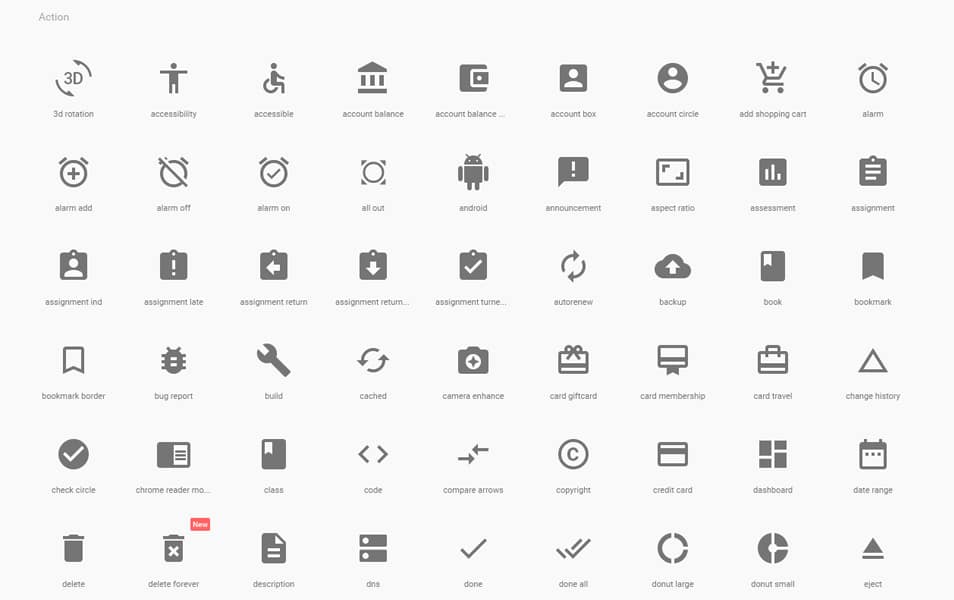
Material Icons Font Download . The material icons guide has everything you need. Browsing and downloading individual icons. It depends on @mui/material , which requires emotion packages. Material symbols are our newest icons consolidating over 2,500 glyphs in a single font file with a wide range of design variants. The icons are available for download in svg or pngs,. The complete set of material icons are available on the material icon library. All the material icons are available on the github page. This package is automatically updated, so it. Use the popdown menu near top left to choose between the two. Material design icons are delightful, beautifully crafted symbols for common actions, available in a variety of styles (filled, outlined,. Material icons is an icon font useful for implementing google's material design language.
Material design icons are delightful, beautifully crafted symbols for common actions, available in a variety of styles (filled, outlined,. It depends on @mui/material , which requires emotion packages. Material symbols are our newest icons consolidating over 2,500 glyphs in a single font file with a wide range of design variants. Browsing and downloading individual icons. The complete set of material icons are available on the material icon library. This package is automatically updated, so it. Material icons is an icon font useful for implementing google's material design language. The material icons guide has everything you need. All the material icons are available on the github page. The icons are available for download in svg or pngs,.
Material Icons Font Download Material symbols are our newest icons consolidating over 2,500 glyphs in a single font file with a wide range of design variants. The complete set of material icons are available on the material icon library. It depends on @mui/material , which requires emotion packages. The material icons guide has everything you need. Material design icons are delightful, beautifully crafted symbols for common actions, available in a variety of styles (filled, outlined,. Browsing and downloading individual icons. All the material icons are available on the github page. The icons are available for download in svg or pngs,. This package is automatically updated, so it. Material symbols are our newest icons consolidating over 2,500 glyphs in a single font file with a wide range of design variants. Material icons is an icon font useful for implementing google's material design language. Use the popdown menu near top left to choose between the two.
6 Free Material Design Icon Packs Super Dev Resources Material Icons Font Download Browsing and downloading individual icons. It depends on @mui/material , which requires emotion packages. The icons are available for download in svg or pngs,. Material design icons are delightful, beautifully crafted symbols for common actions, available in a variety of styles (filled, outlined,. All the material icons are available on the github page. This package is automatically updated, so it.. Material Icons Font Download.
Material Design Icons Material Icons Font Download The material icons guide has everything you need. The icons are available for download in svg or pngs,. All the material icons are available on the github page. This package is automatically updated, so it. Material design icons are delightful, beautifully crafted symbols for common actions, available in a variety of styles (filled, outlined,. The complete set of material icons. Material Icons Font Download.
Google Icon Font at Collection of Google Icon Font Material Icons Font Download Material symbols are our newest icons consolidating over 2,500 glyphs in a single font file with a wide range of design variants. Material design icons are delightful, beautifully crafted symbols for common actions, available in a variety of styles (filled, outlined,. Material icons is an icon font useful for implementing google's material design language. The complete set of material icons. Material Icons Font Download.
Cara Menggunakan Font Material Icon Pada Kodular YouTube Material Icons Font Download It depends on @mui/material , which requires emotion packages. Material symbols are our newest icons consolidating over 2,500 glyphs in a single font file with a wide range of design variants. The complete set of material icons are available on the material icon library. Use the popdown menu near top left to choose between the two. Browsing and downloading individual. Material Icons Font Download.
Type Icons Font Download Material Icons Font Download The material icons guide has everything you need. Browsing and downloading individual icons. Material design icons are delightful, beautifully crafted symbols for common actions, available in a variety of styles (filled, outlined,. Material icons is an icon font useful for implementing google's material design language. The complete set of material icons are available on the material icon library. The icons. Material Icons Font Download.
Great Icon fonts for Responsive Designing Projects Material Icons Font Download Material design icons are delightful, beautifully crafted symbols for common actions, available in a variety of styles (filled, outlined,. The complete set of material icons are available on the material icon library. All the material icons are available on the github page. Material icons is an icon font useful for implementing google's material design language. This package is automatically updated,. Material Icons Font Download.
Material Icons Pack Sketch freebie Download free resource for Sketch Material Icons Font Download It depends on @mui/material , which requires emotion packages. Material design icons are delightful, beautifully crafted symbols for common actions, available in a variety of styles (filled, outlined,. The complete set of material icons are available on the material icon library. This package is automatically updated, so it. Material symbols are our newest icons consolidating over 2,500 glyphs in a. Material Icons Font Download.
Icons Material Design Material Icons Font Download Material icons is an icon font useful for implementing google's material design language. Material symbols are our newest icons consolidating over 2,500 glyphs in a single font file with a wide range of design variants. Material design icons are delightful, beautifully crafted symbols for common actions, available in a variety of styles (filled, outlined,. The complete set of material icons. Material Icons Font Download.